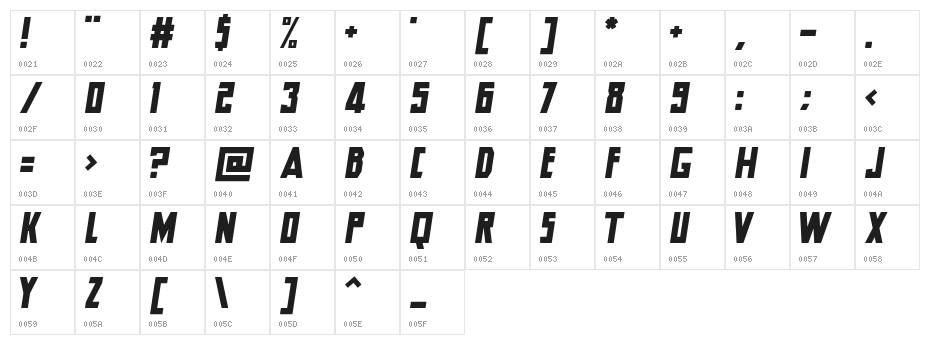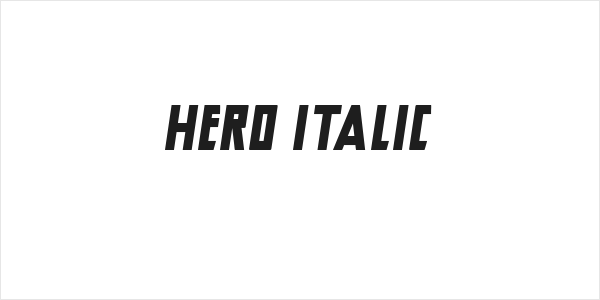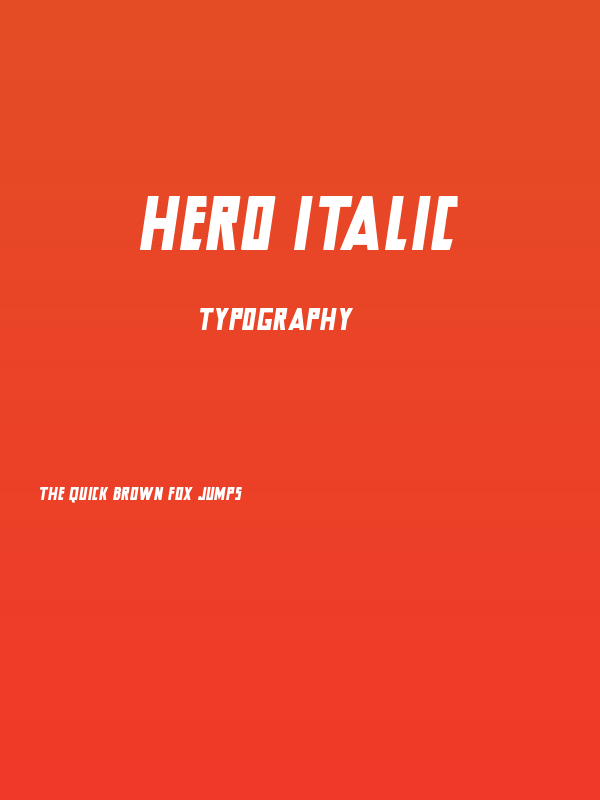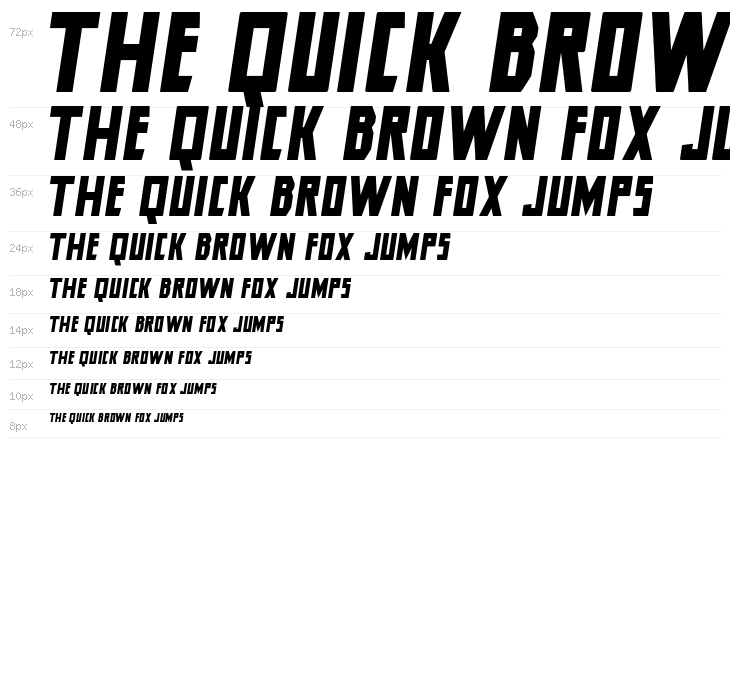
Hero Italic Font
Hero Italic Description
This font features a bold and dynamic design with a strong italic slant, giving it a sense of motion and energy. The characters are robust and angular, with sharp edges and a slightly condensed form. This style conveys a modern and assertive look, suitable for making a strong visual impact. The uppercase and lowercase letters maintain a consistent style, with numerals and special characters complementing the overall aesthetic. The font's boldness and italic nature make it ideal for attention-grabbing headlines and titles.
| Proposed Projects | Ideal for sports branding, action movie posters, dynamic advertisements, and bold headlines. |